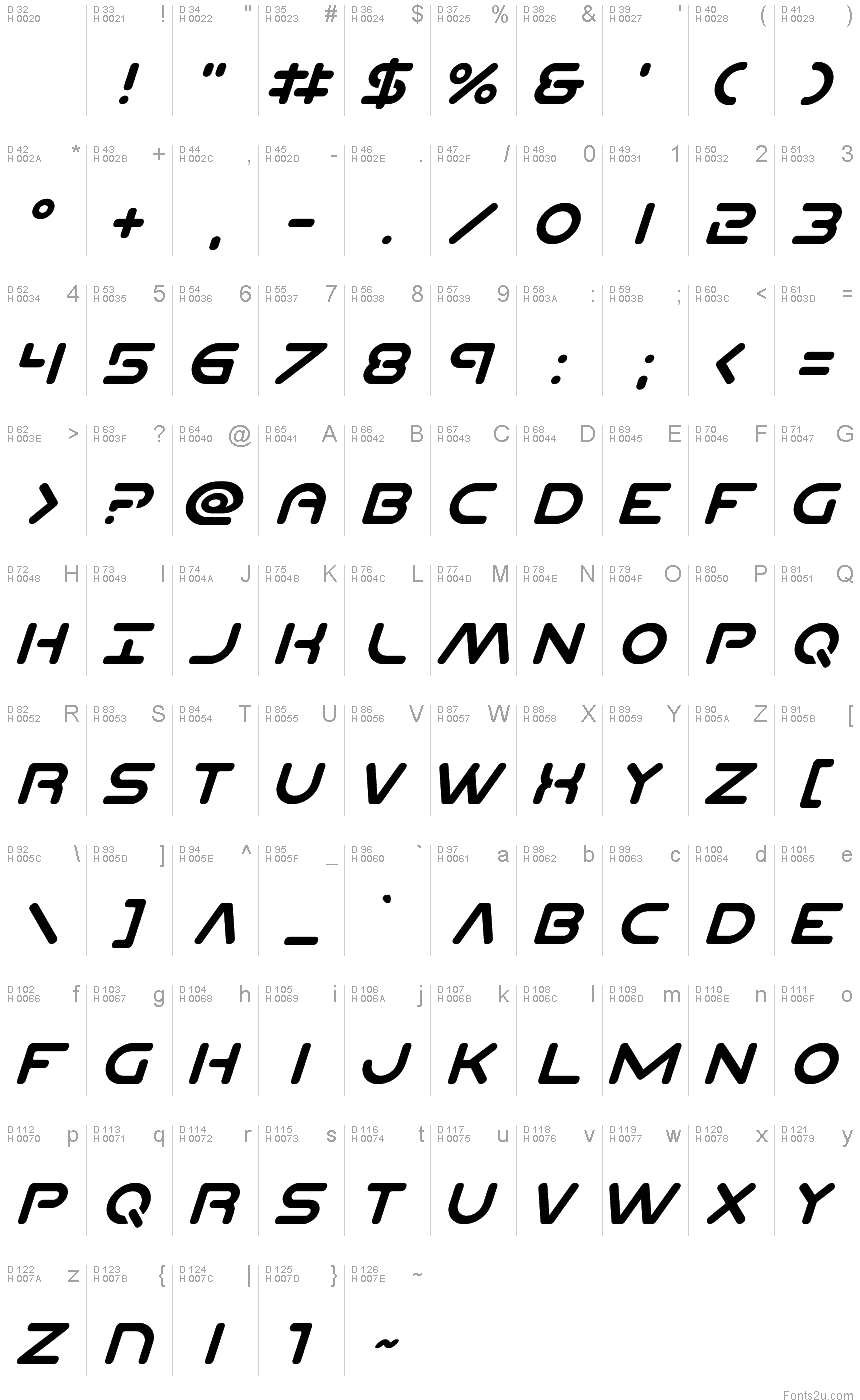
Planet N Italic
Planet N Italic by Iconian Fonts is a free futuristic caps display font with a sleek sci-fi slant. The letters are built from broad, rounded strokes and sharp angled joins, giving the alphabet a fast, machine-cut rhythm that feels closer to spacecraft decals than ordinary modern display lettering.
It fits naturally into game logos, poster titles, tech branding, album covers, and title cards where a free font with motion already in the forms can do much of the visual work. Because the caps lean forward and keep their corners softened, it also works for short headlines, monograms, and interface-style labels that want a clean synthetic tone without looking cold.